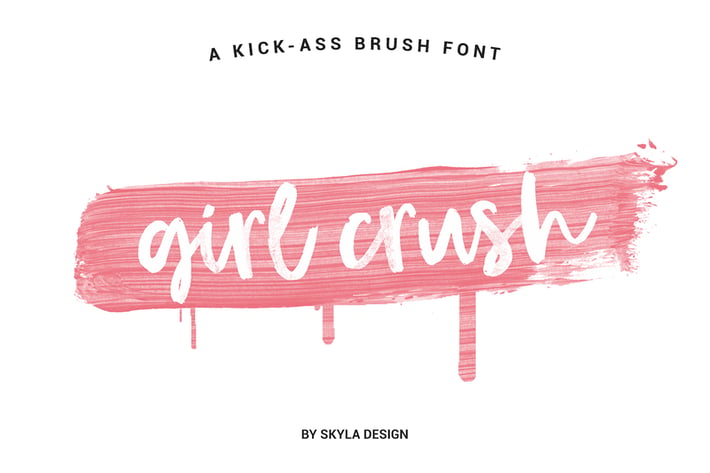
Bold brush font, Girl Crush
Girl Crush is a bold brush font with an edge. This font will give your designs that fresh, edgy feel to it and will look lovely on quotes, fashion magazines, logos & any other awesome projects.